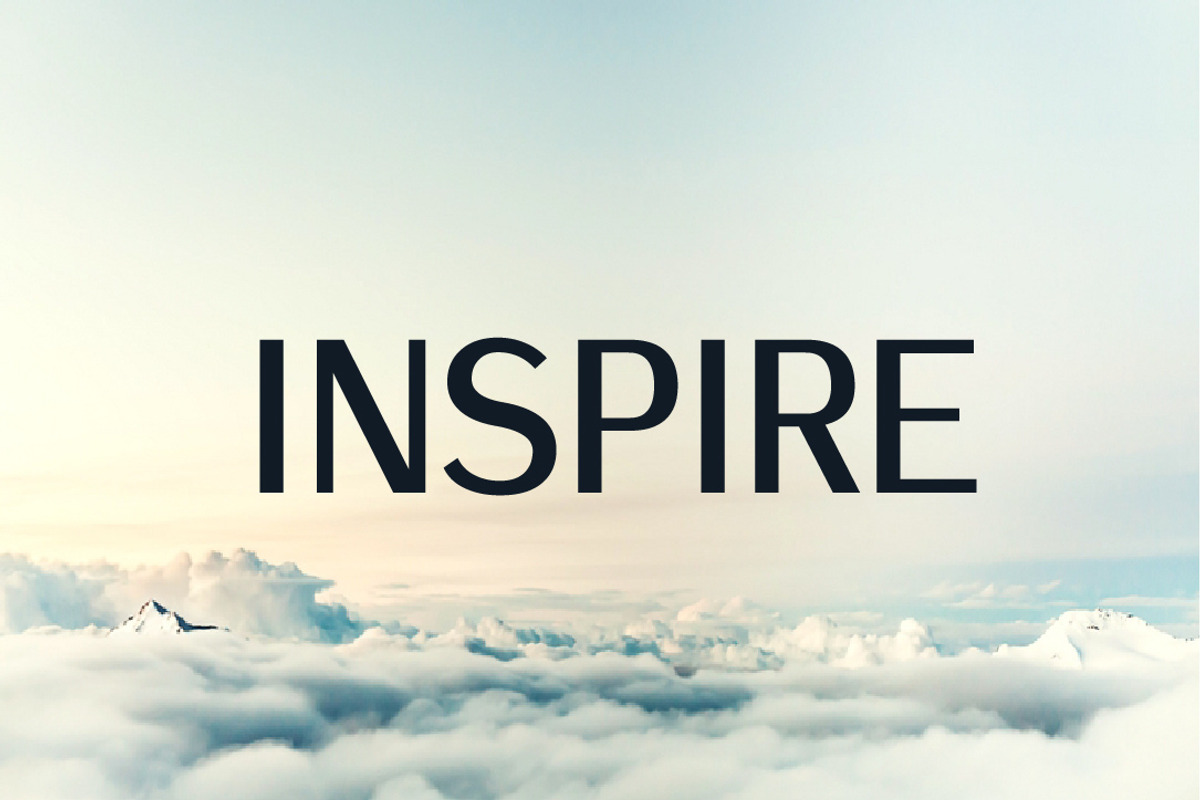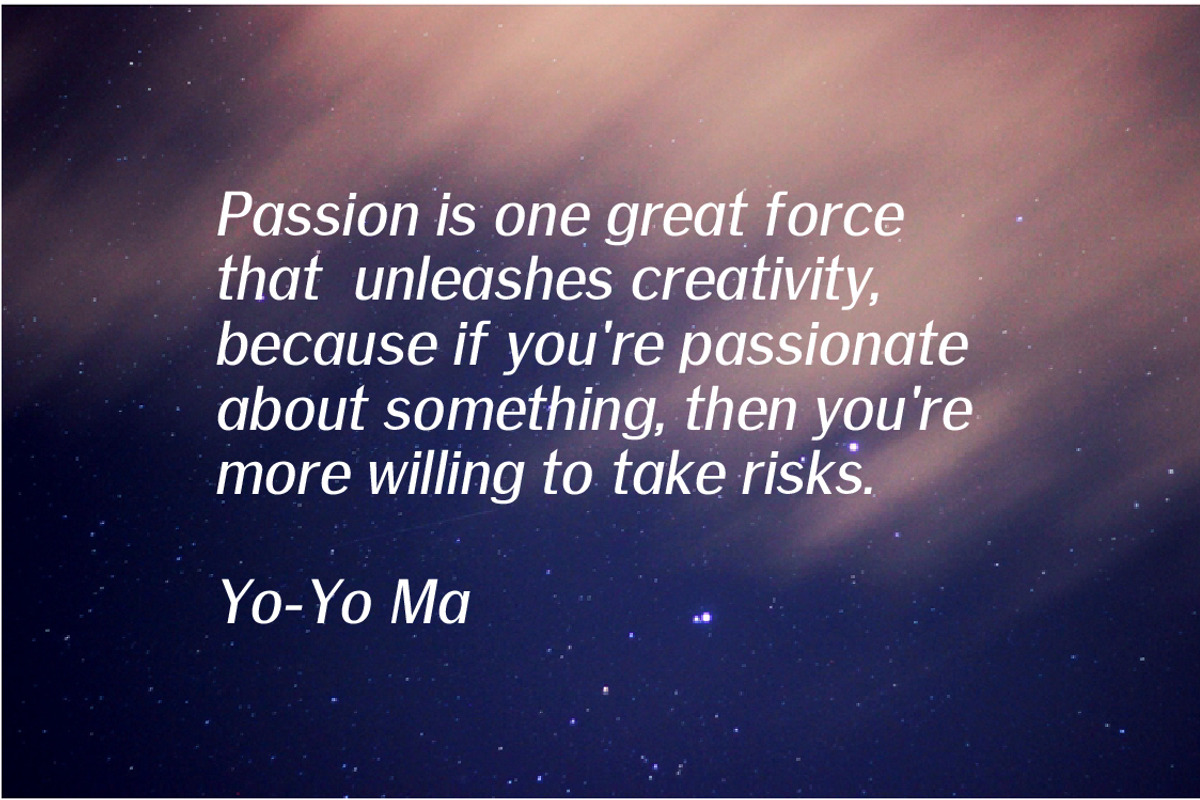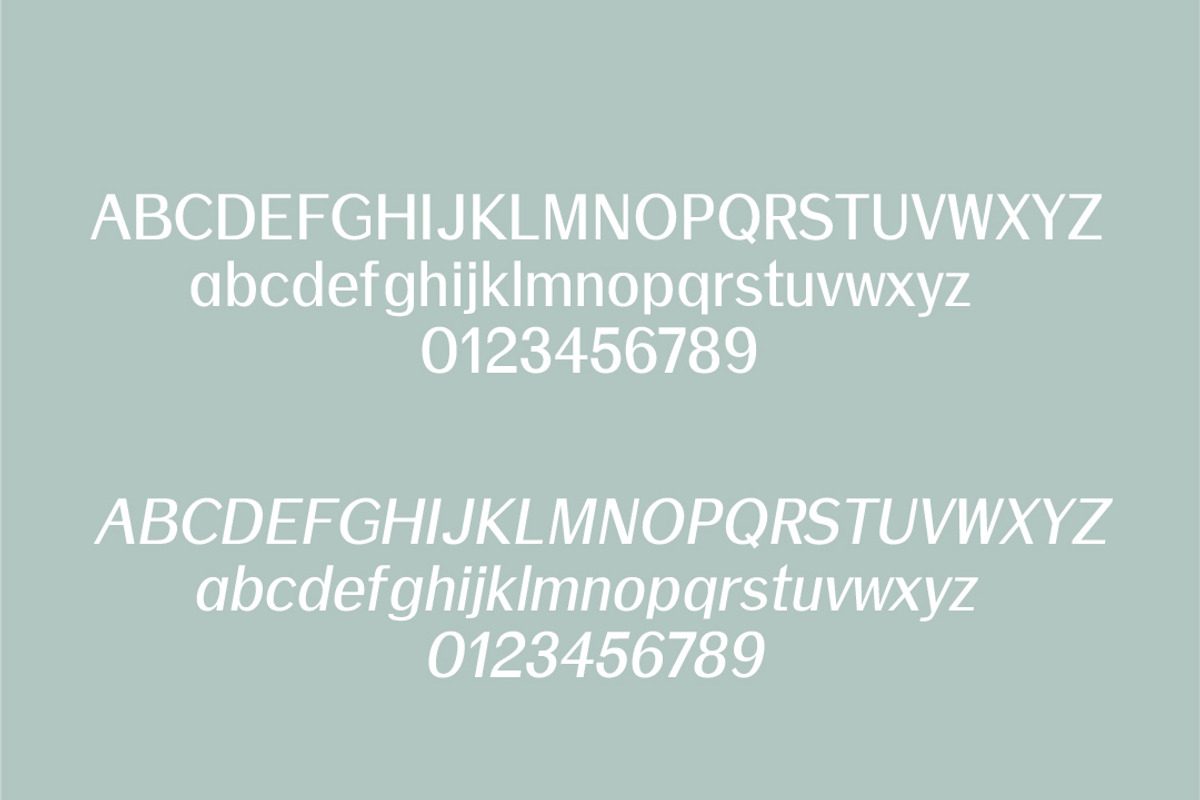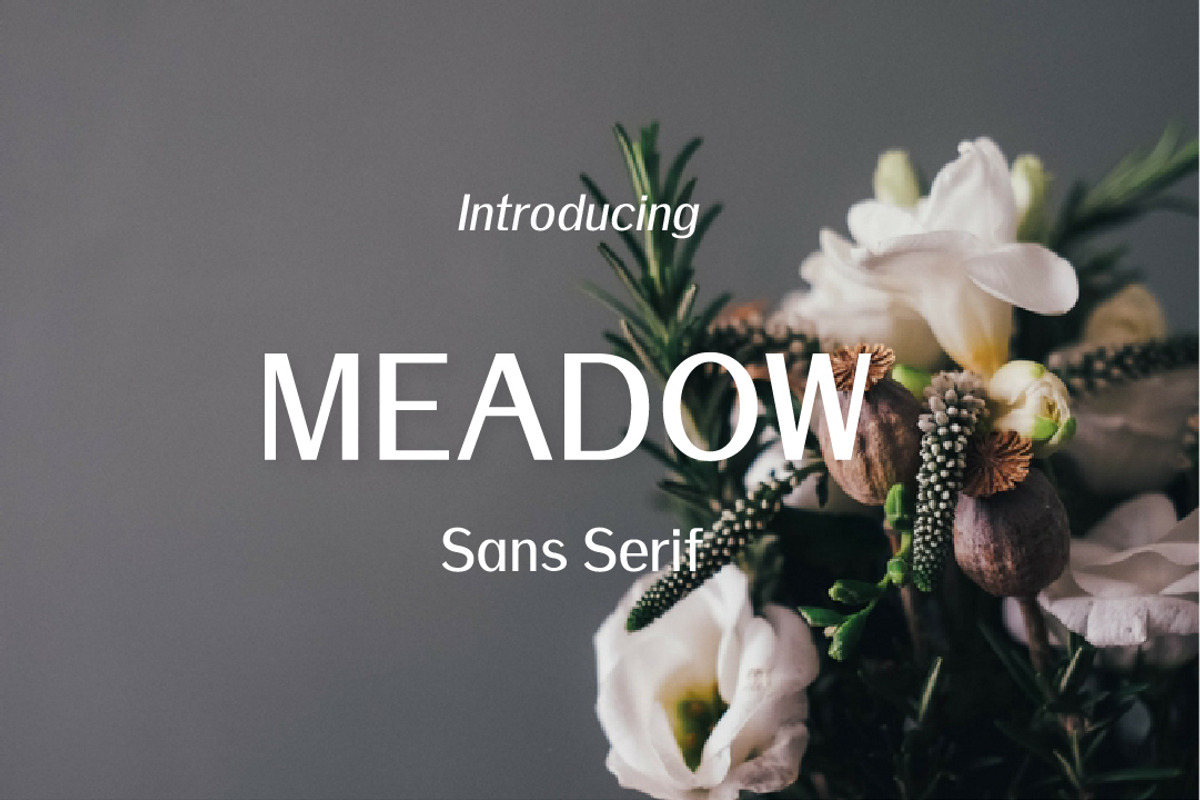
Meadow-Sans Serif font family
Meadow-Sans Serif font family by TinyWanderersArt is a font selected for branding, posters, packaging, typography.
- Meadow Light
- Meadow Regular
- Meadow Semi bold
- Meadow Semi bold italic
- Meadow Bold
- Meadow Bold italic
Why Meadow-Sans Serif font family is worth a look
Meadow-Sans Serif font family by TinyWanderersArt fits naturally into Branding, posters, packaging, typography.